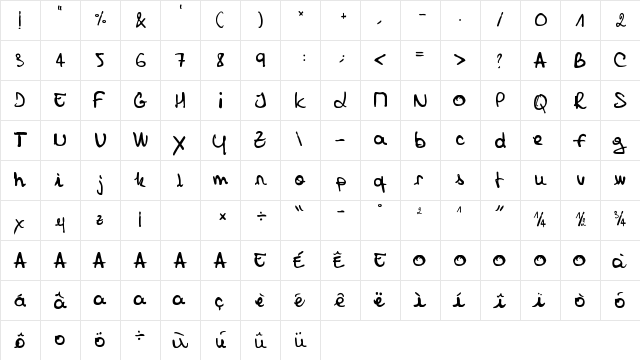
sophie Regular Font Preview
sophie Regular
sophie Regular Font Details
| Designer | Serge Gilette |
Design Context for sophie Typeface
sophie is a composed and adaptable typeface that performs quietly and consistently across a wide range of design contexts.